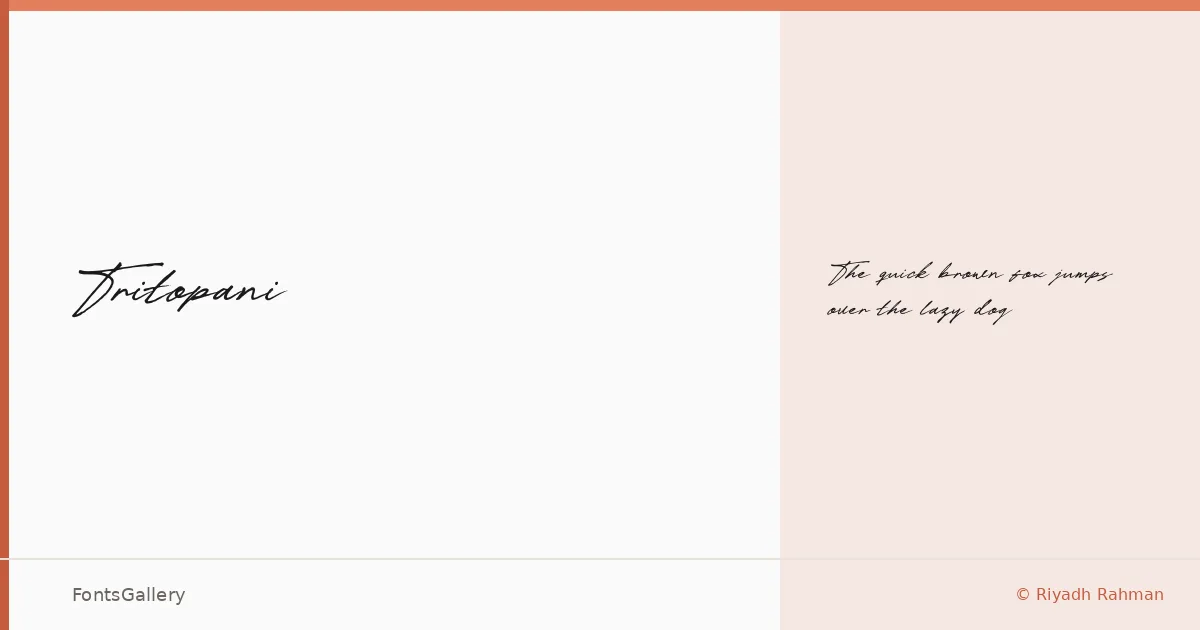
About Tritopani Font
There is a deliberate romanticism in the way this script moves — the strokes rise and settle with the kind of unhurried confidence that suits formal occasions. Designed by Riyadh Rahman and released under the ErgibiStudio2026 mark, it arrives as a single Regular weight in OTF format, built in FontCreator 11. The letterforms carry a classic elegance that reads as considered rather than ornate.
Tritopani sits squarely in the script category, and its mood leans classic and romantic — the sort of tone that feels appropriate when the stakes of a design are high. The single Regular cut means there is no range of weights to navigate; what you get is one carefully drawn voice, with flowing connections and refined proportions that hold up well at display sizes. It covers the Latin character set, which keeps it focused and clean.
The face is naturally suited to wedding stationery, invitation cards, greeting cards, and logo work where an elegant hand-lettered quality is the point. For branding projects that need contrast, it pairs well alongside the cool geometry of Helvetica or the editorial warmth of Canela, and it can also hold its own next to ABC Arizona, Anglecia Pro, or Asap when a serif or sans companion is needed to anchor body copy.